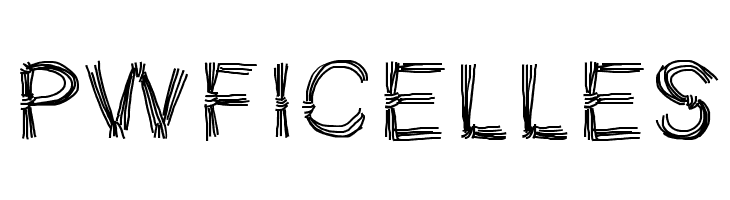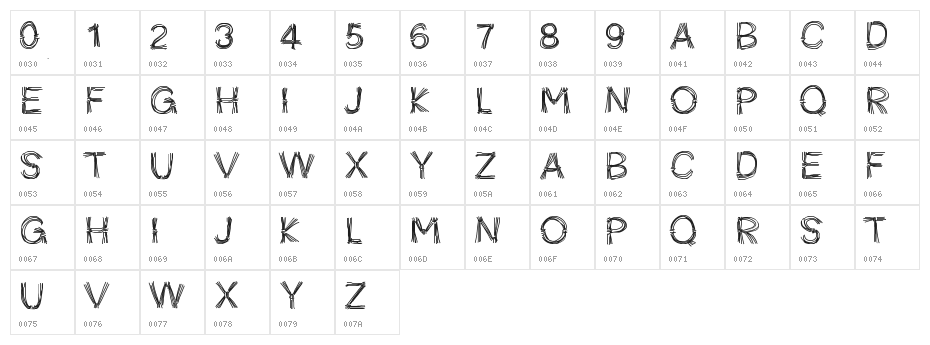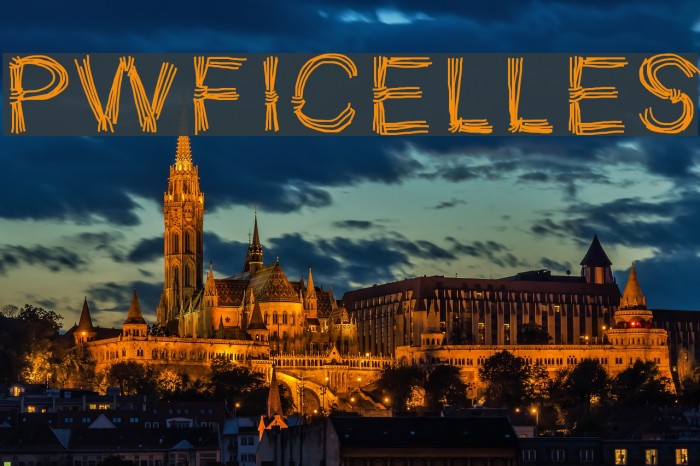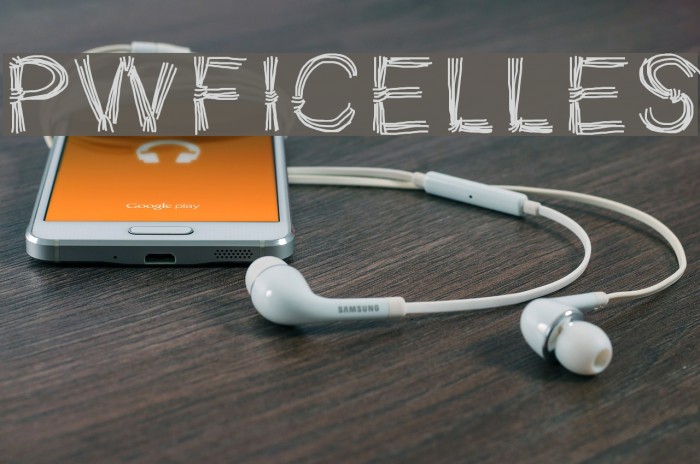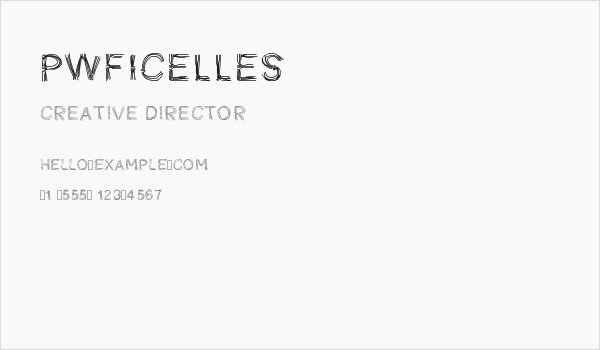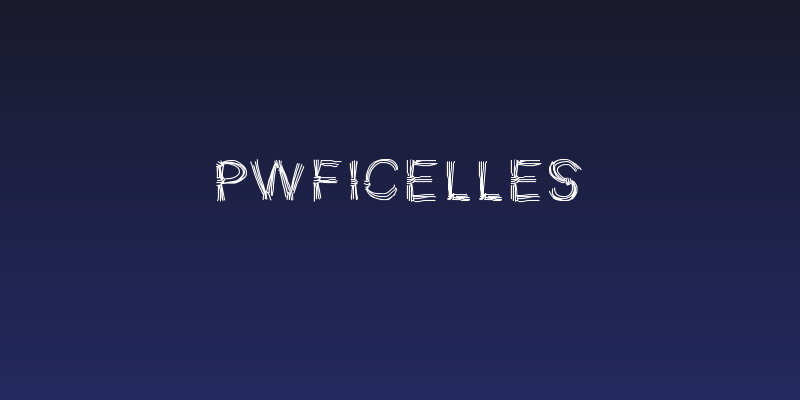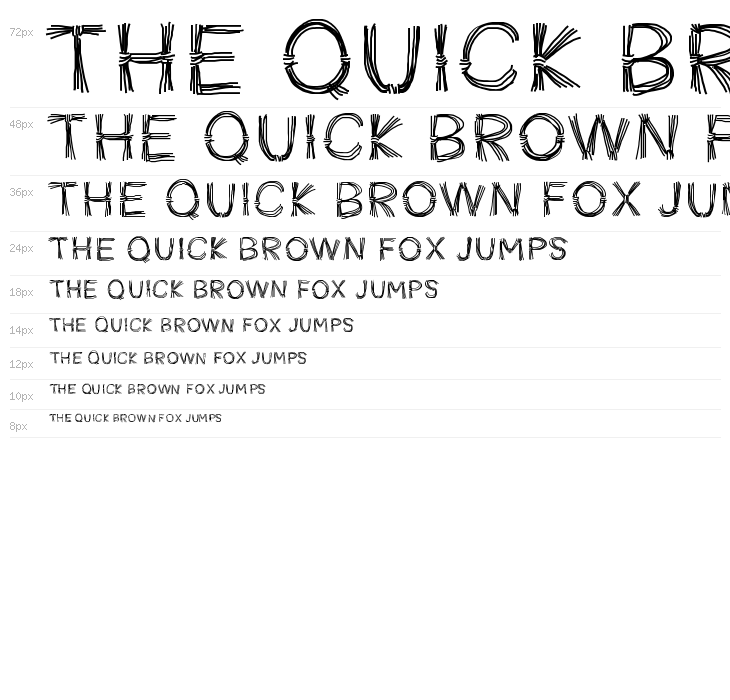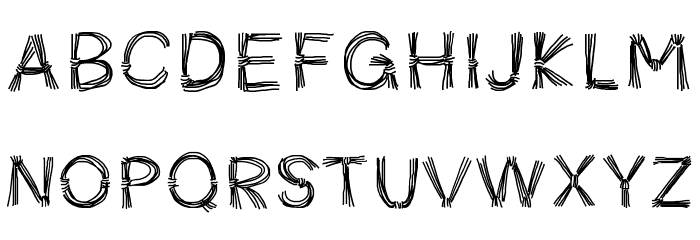
PWFicelles Font
PWFicelles Description
This font features a unique and playful design, characterized by its sketch-like appearance. Each character is composed of multiple overlapping lines, creating a textured and dynamic look. The letters maintain a consistent height and width, giving the font a uniform appearance despite its intricate detailing. The overall style is whimsical and artistic, making it stand out in any design project. The numbers and special characters follow the same design principles, ensuring cohesion across all elements. This font is ideal for creative projects that require a touch of originality and flair.
| Overall Style | Whimsical and Artistic |
| Use Case | Headlines, Logos, Creative Projects |
| Proposed Projects | Ideal for artistic posters, creative branding, children's book covers, and unique invitations. |